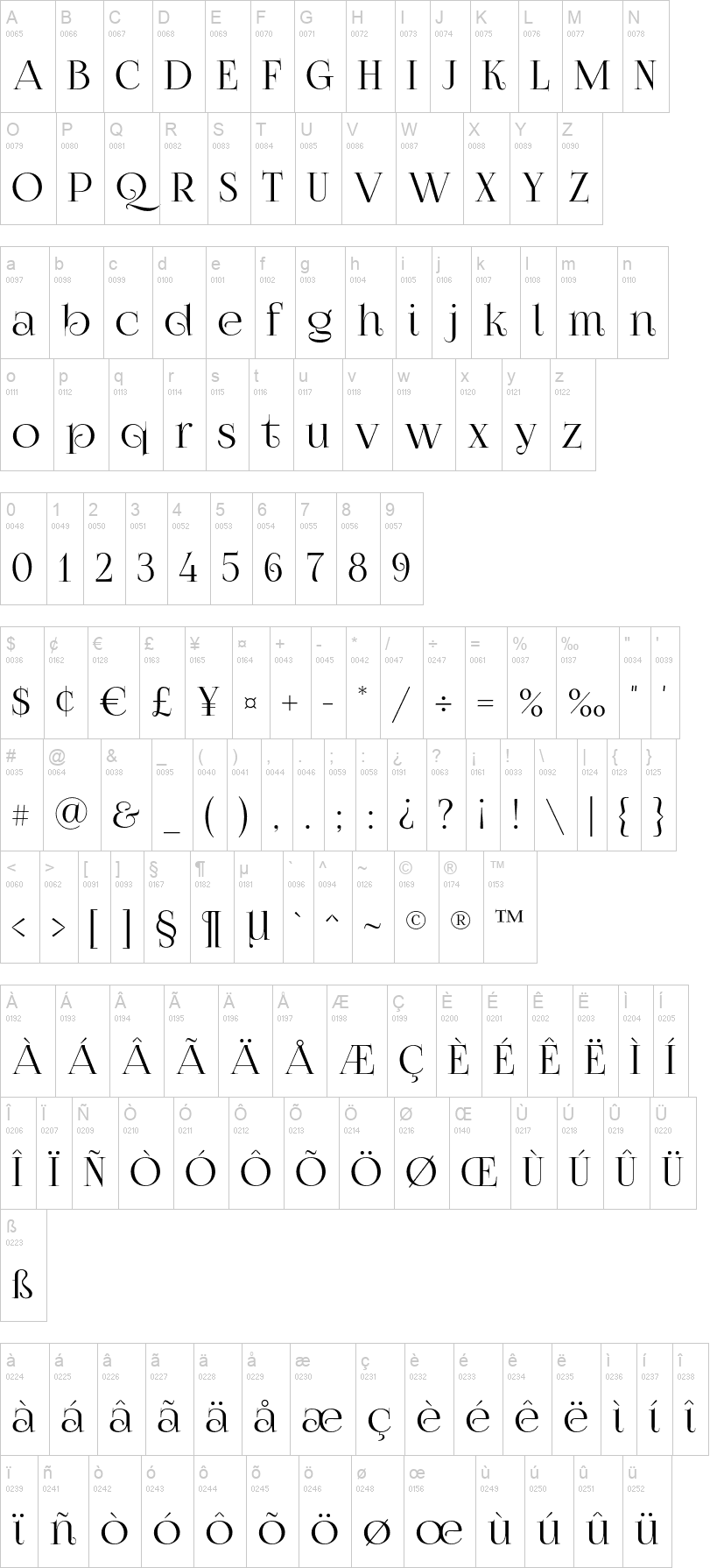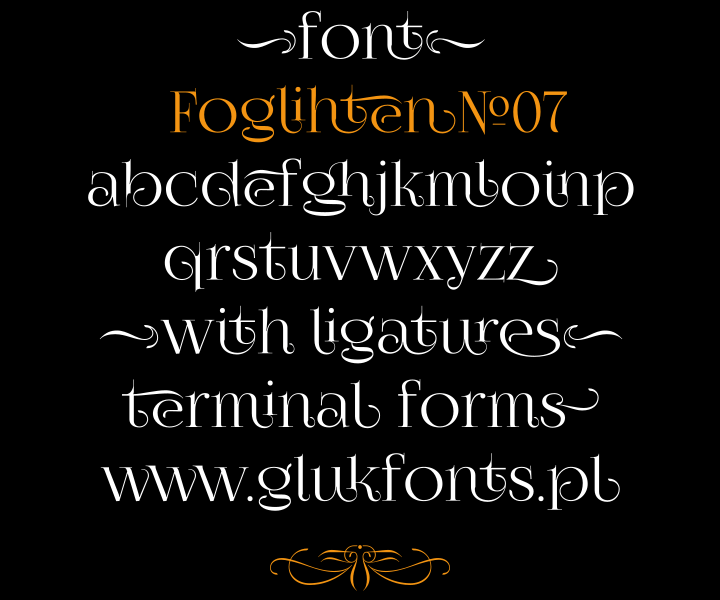
Note of the authorver.0.841 with new initial forms, and new ligatures.
And with additional new font FoglihtenNo07calt - version with initial and terminal alternates as default (contextual alternates), and alternate "r" (from stylisticSet02).
ver.0871 small changes